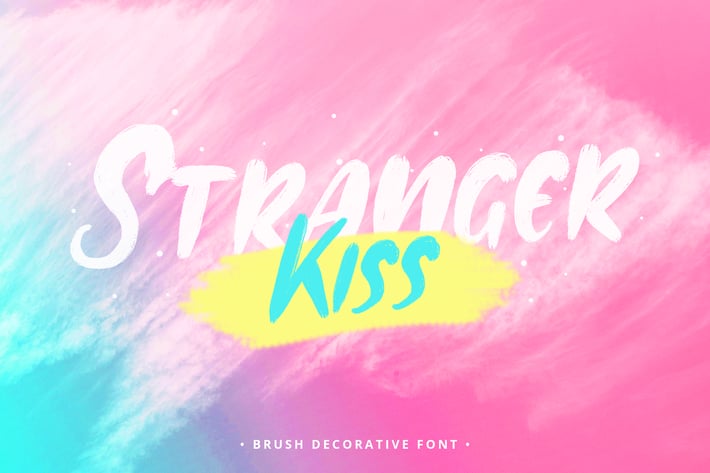
Stranger Kiss - Font
This font is cool for branding, Birthday invites, Esport theme, Mugs, Business Cards, Quotes, Posters, and many more.
Font Type Features
+ Uppercase
+ Lowercase
+ Numerals & Punctuations